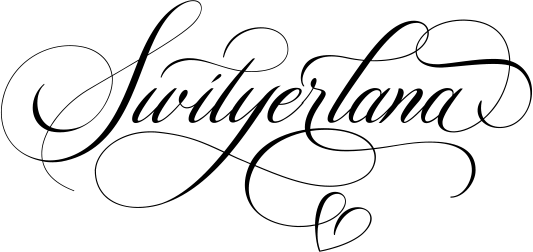
Switzerland Font
Magazines, fashions, decorative headings, and wedding invitations can be designed in a way to create a delicate and fancy look which is a great style for these areas. With that said we suggest Switzerland which is a script font with calligraphy styling.
This font comes with both the uppercase and lowercase of the alphabets, the numbers, and punctuation marks. The readability of this font isn’t great so use it for small contexts.